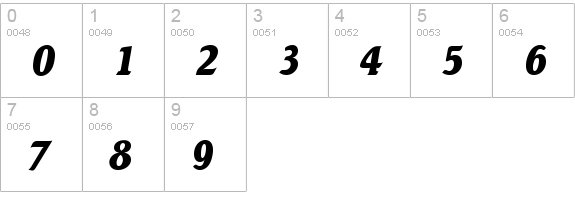
Seagull-BlackIta Font Details
Seagull-BlackIta font is a bold and elegant typeface that exudes sophistication and modernity. With its sleek and stylish design, this font is perfect for creating eye-catching headlines and titles. The Seagull-BlackIta font features perfectly balanced letterforms, with each character carefully crafted to ensure clarity and legibility. Its clean lines and sharp edges give it a contemporary feel, making it a versatile choice for various design projects. Whether you're designing a logo, creating a branding identity, or working on a website, the Seagull-BlackIta font will make your text stand out with its bold presence. Its strong and confident appearance commands attention, making a lasting impression on your audience. What's more, the Seagull-BlackIta font is available for free download at FontsMarket.com. This means that you can easily access this stunning font and use it in your projects without any cost. FontsMarket.com is a trusted source for high-quality fonts, and their platform ensures a seamless and hassle-free downloading experience. Embrace the power and elegance of Seagull-BlackIta font in your designs. Its modern and stylish aesthetic will elevate your projects and leave a lasting impression. Download it for free today from FontsMarket.com and unlock endless creative possibilities.